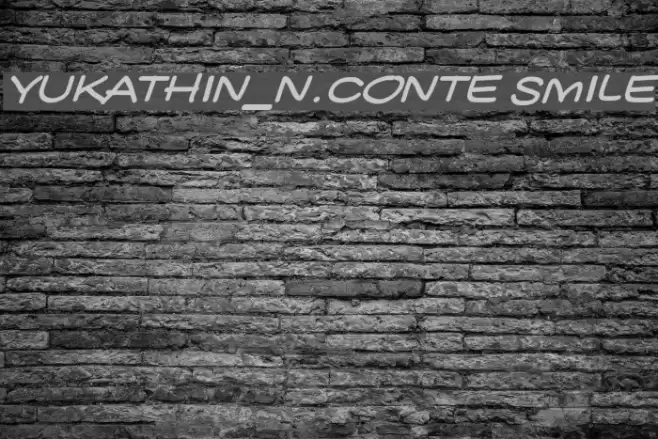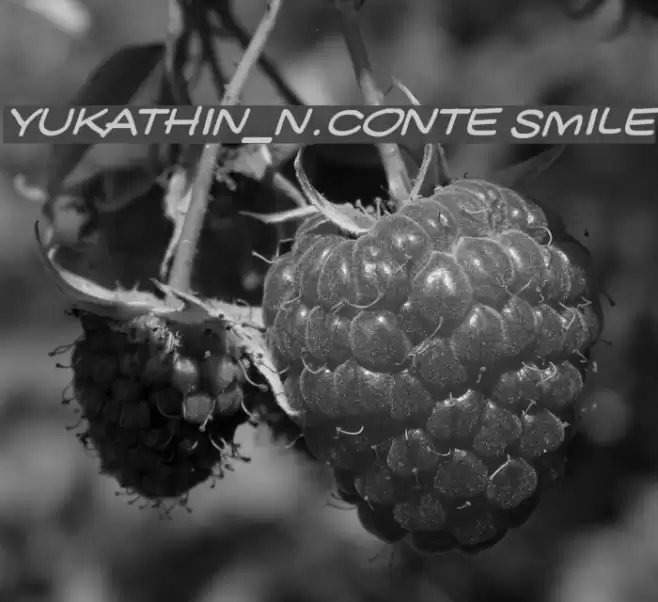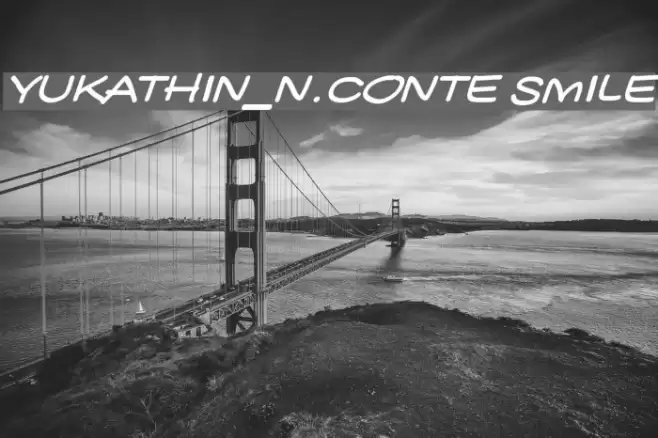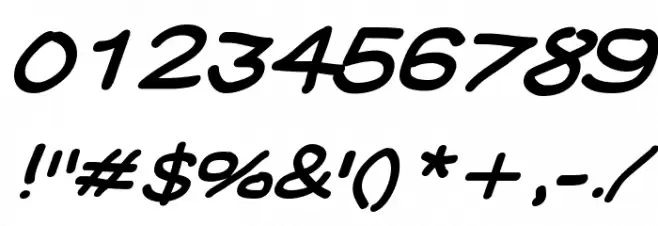
YUKATHIN_N.CONTE SMILE Font
YUKATHIN_N.CONTE SMILE Description
This font features a playful and dynamic script style, characterized by its smooth, flowing lines and slightly slanted letters. The strokes are consistent in thickness, giving it a cohesive and uniform appearance. The uppercase letters are bold and prominent, while the lowercase letters maintain a friendly and approachable look. The numerals are clear and easy to read, complementing the overall style. Special characters are integrated seamlessly, maintaining the font's lively and energetic feel. This font is ideal for projects that require a touch of personality and flair.
A playful, dynamic script font with smooth, flowing lines and consistent stroke thickness from Uncategorized fonts.
- Proposed Projects: Great for greeting cards, invitations, branding, and playful advertising materials.
- Overall Style: Playful
- Use Case: Logos, Invitations, Greeting Cards